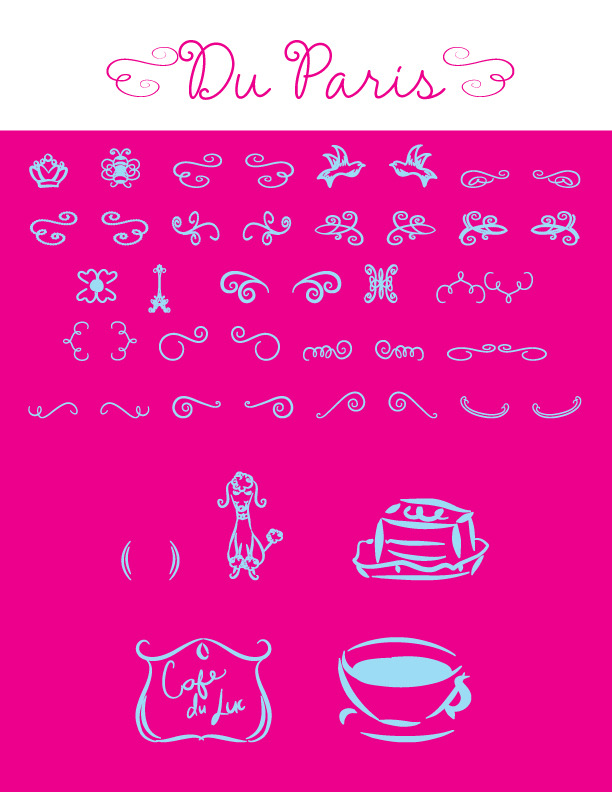
Du Paris Dingbat Font
Du Paris is a sweet little dingbat font with 45 different dings for you to adorn everything from scrapbooks to little cards. The download zip package contains one .TTF font file.